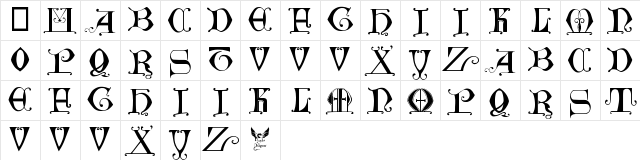
British Museum, 14th c. Regular
Design Context for British Museum, 14th c. Typeface
British Museum, 14th c. is a composed and adaptable typeface that performs quietly and consistently across a wide range of design contexts.